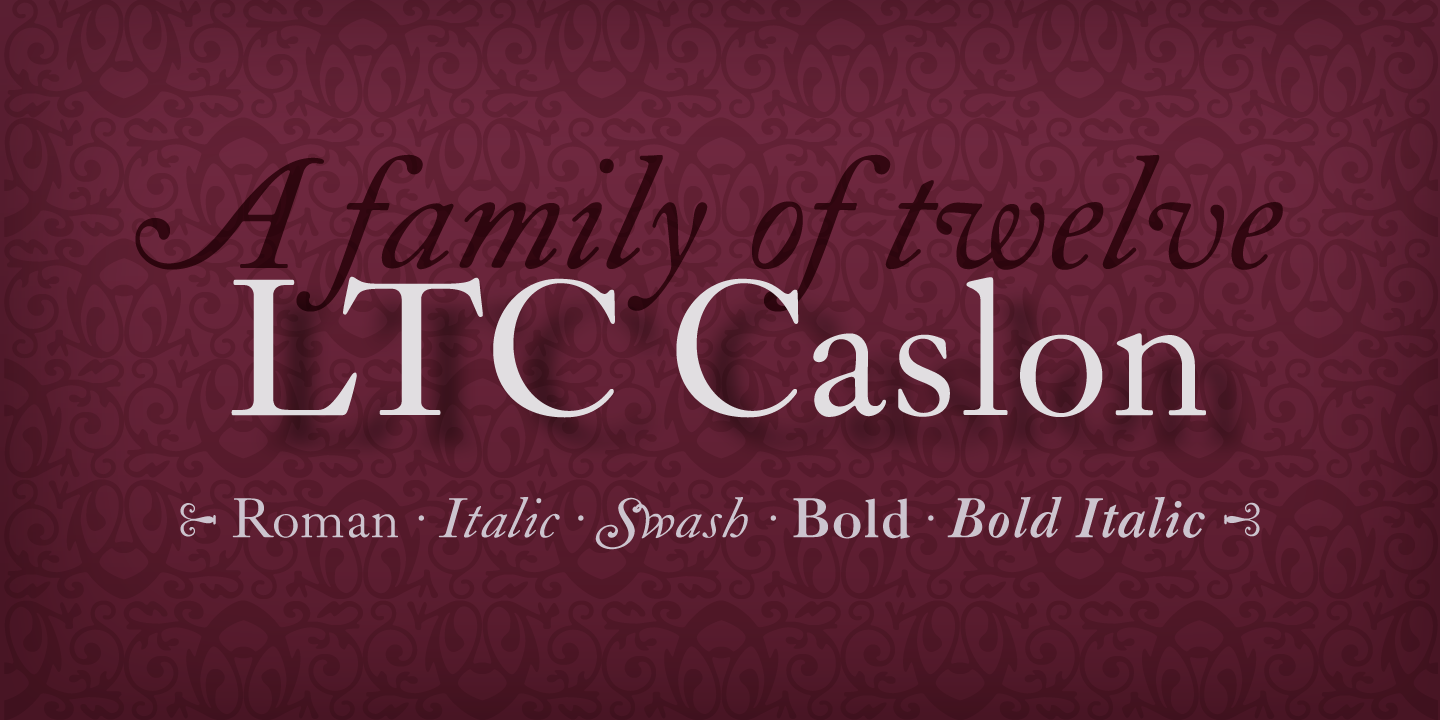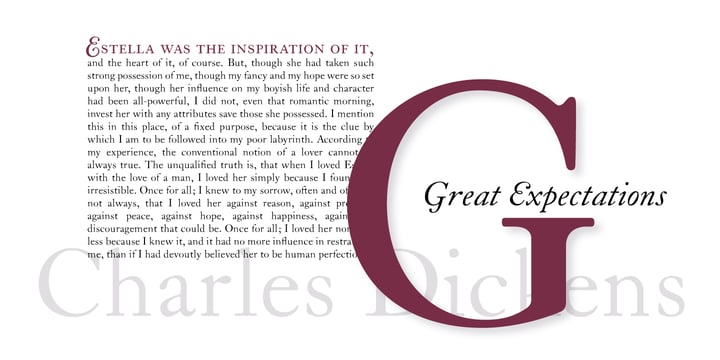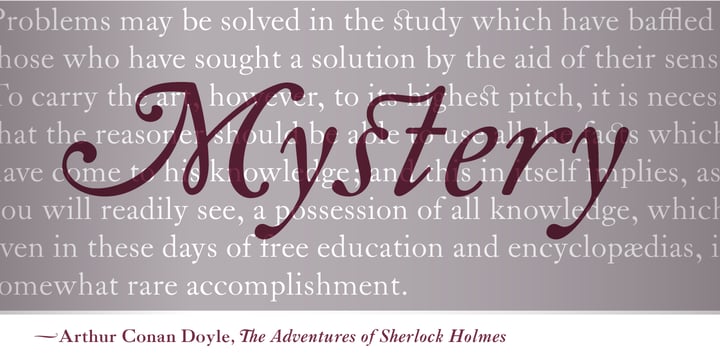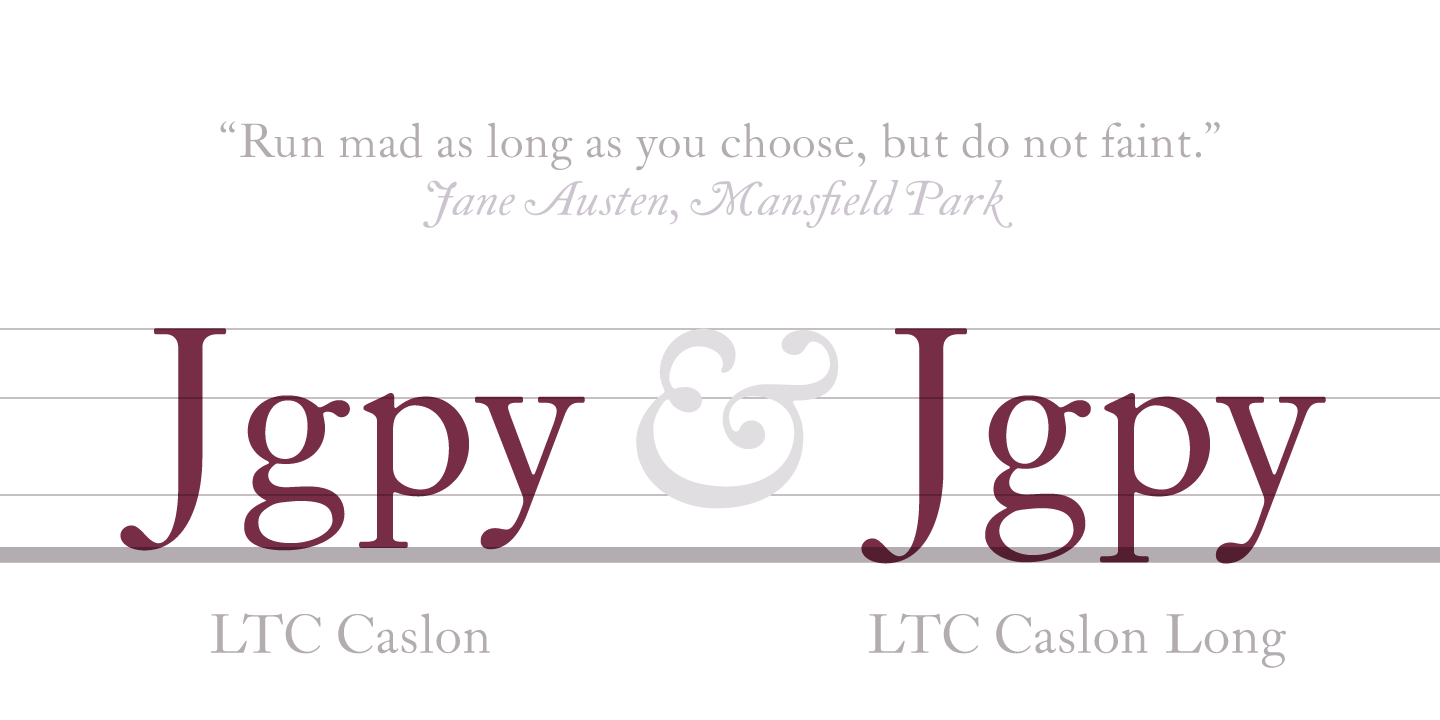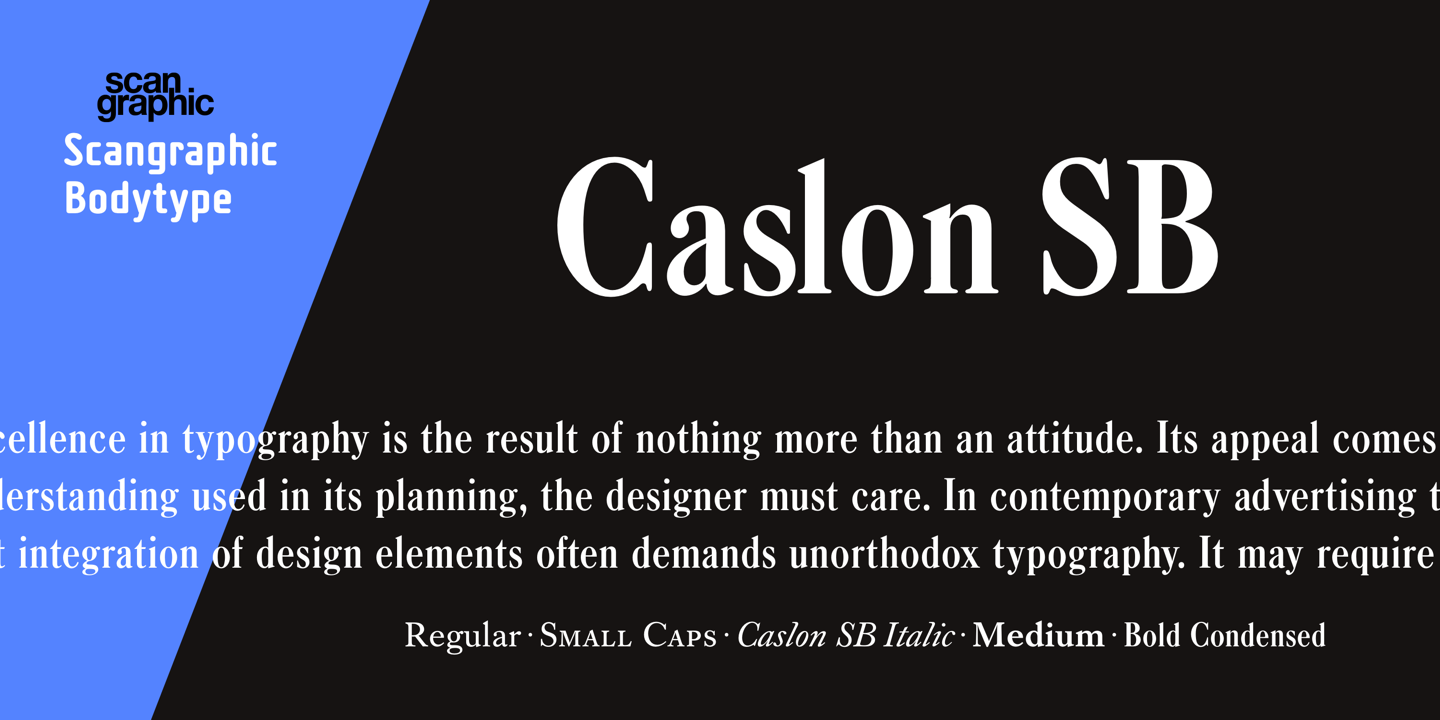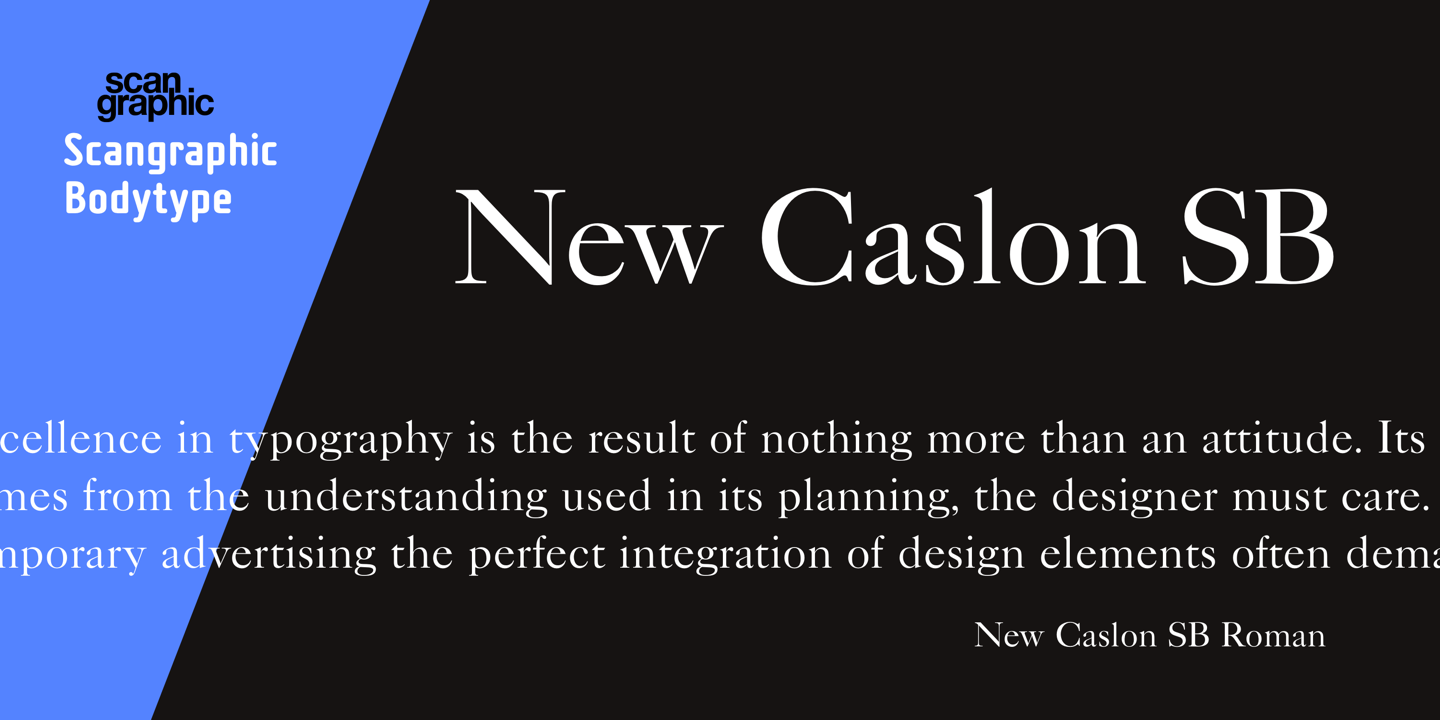
Mid-eighteenth century British punchcutter and typefounder, who solidly established British typefounding with well-crafted copies of earlier Dutch designs.
Caslon started work as apprentice to a London gunsmith, and set up his own business in 1716 engraving gunlocks and bookbinding tools. In 1720 William Bowyer the elder took him to see the respected James foundry, and subsequently helped Caslon set up as a type founder himself. His great reputation stems largely from his specimen of 1734, showing types that were (and often still are) reckoned to be superior to the Dutch types that inspired them. Indeed, his success meant the English reliance on Dutch types came to an end. He cut many non-Latin types (including Greek, Arabic, Hebrew, Coptic and Armenian) and some beautiful ornaments. His types were just as highly regarded in colonial America, and the Declaration of Independence was set in Caslon. His son, William Caslon II, took over the business upon his death in 1766.
Updike explains the fame and excellence of Caslon’s types thus: “While he modelled his letters on Dutch types, they were much better; for he introduced into his fonts a quality of interest, a variety of design, and a delicacy of modelling, which few Dutch types possessed. Dutch fonts were monotonous, but Caslon’s fonts were not so. His letters when analyzed, especially in the smaller sizes, are not perfect individually; but in their mass their effect is agreeable. That is, I think, their secret: a perfection of the whole, derived from harmonious but not necessarily perfect individual letterforms.”
The foundry, eventually known as H.W. Caslon & Co., passed down through various members of the family until 1937, when the rights were transferred to Stephenson Blake.